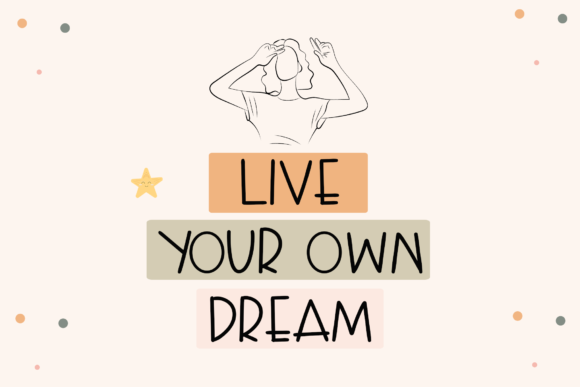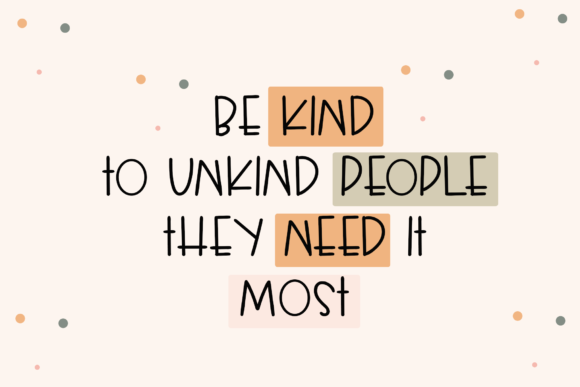
My Darling Font
db-ku.com - Script & Handwritten -- My Darling is a cool and friendly handwritten font, perfect for children designs, chalkboard quotes, and teaching materials! Its authentic look will add a personal and realistic feel to your designs.